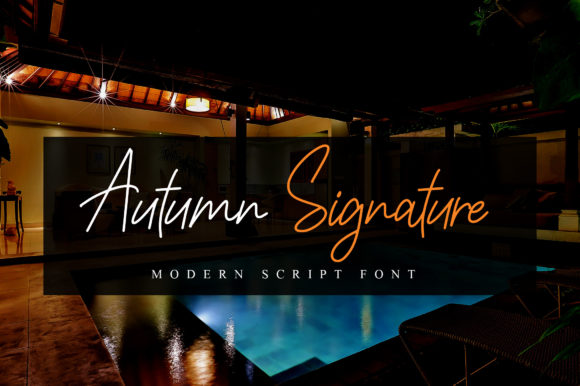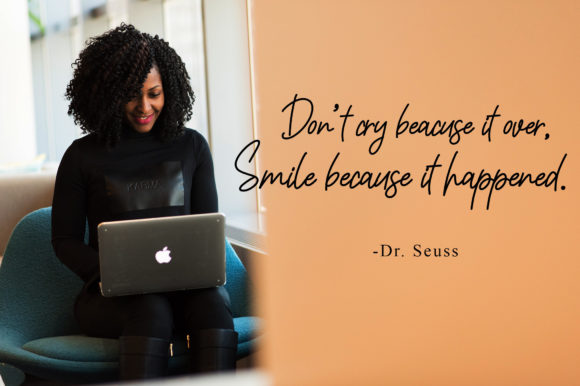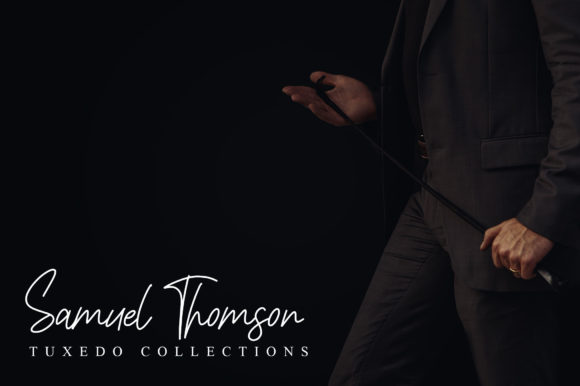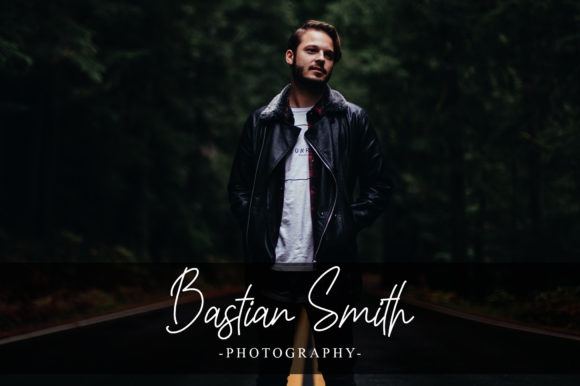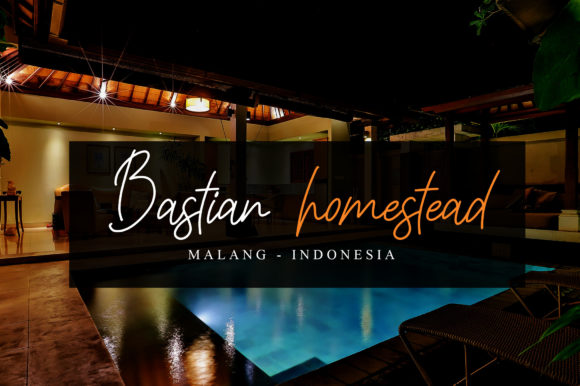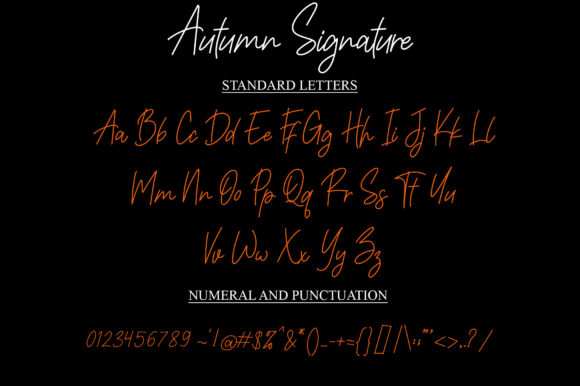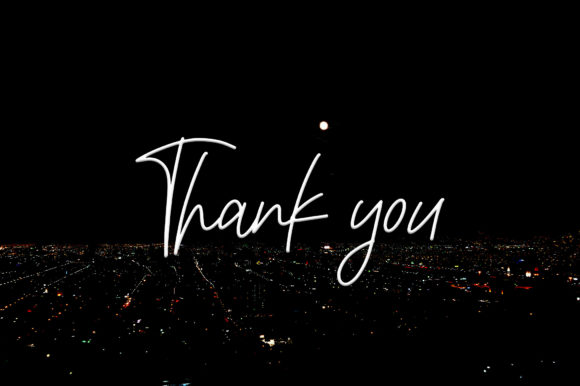
Script Fonts Autumn Signature Font 0 161 FacebookTwitterPinterestWhatsApp 1 of 7 Autumn Signature Font Poster 2... Autumn Signature Font Poster 3... Autumn Signature Font Poster 4... Autumn Signature Font Poster 5... Autumn Signature Font Poster 6... Autumn Signature Font Poster 7... About Autumn Signature Font Soulmate Signature is a thin lettered and graceful script font. Fall for its ravishing style and use it to create gorgeous wedding invitations, beautiful stationary art, eye-catching social media posts, and much more! DOWNLOAD NOW